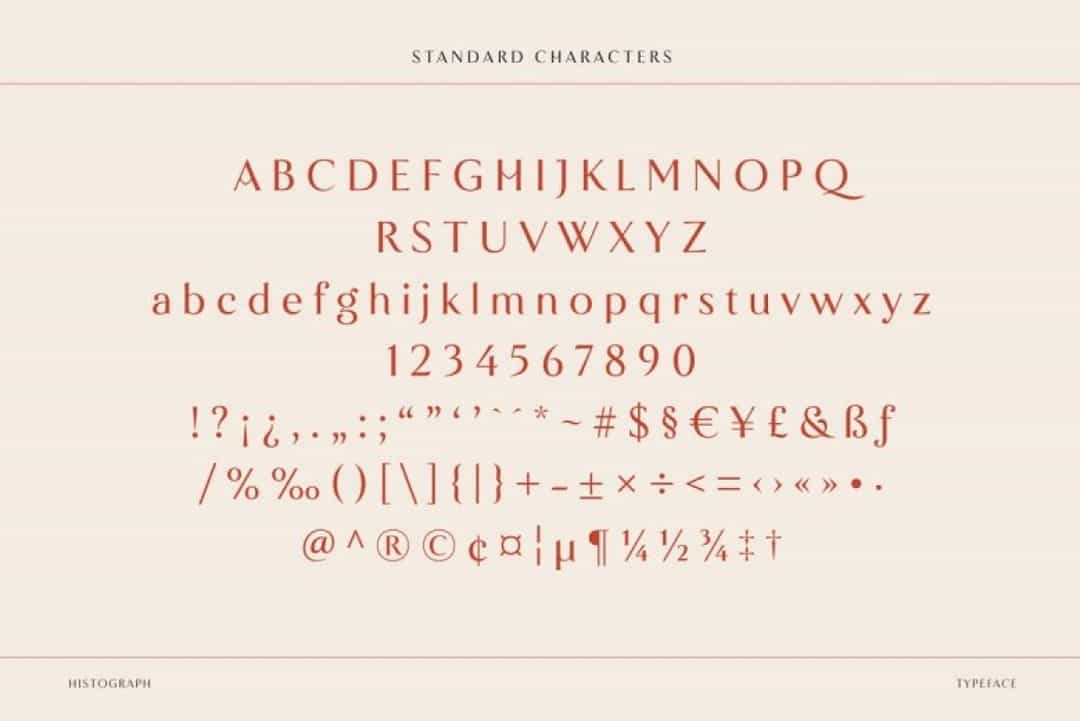
Histograph is a stylish and distinctive serif font suitable for branding, logos, wedding invitations, paragraph titles and other uses. Available in five weights with one variable font variant. Histograph features Ligatures and Alternates as well as Multilanguage Support as well as PUA Coding capabilities.